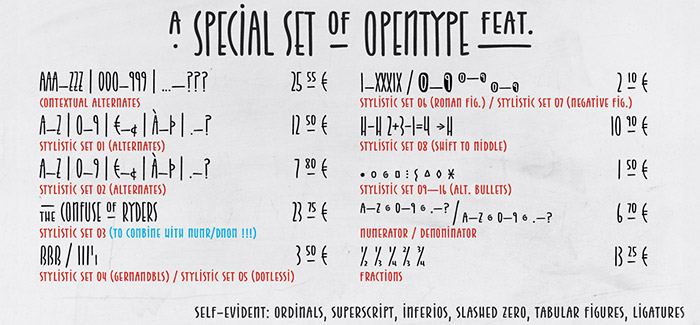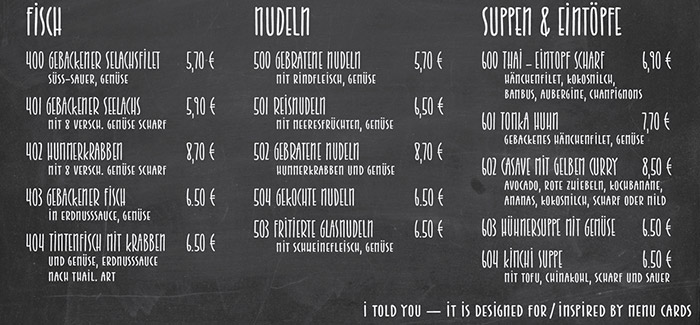
Jabana font
Jabana font by Nils Types foundry is a smooth handwritten super condensed Sans Serif for menu cards and many more. It was designed by the German designer Nils Thomsen to be his first release at MyFonts. Inspired by having a beer at Hamburgs coffee bars.
Jabana font is composed of only uppercase letter shapes. Each letter and punctuation have three simple varieties of alternates. This gives a nice looking handwritten nature to the font. They will be randomly chosen by the contextual alternates feature or even by hand via stylistic set (ss01, ss02).
Jabana fonts reveals a huge treasury of standard accented letters, fractions, mathematical glyphs, superiors and inferiors you will find alternates, extra bullets, different arrows, negative figures and roman numerals. Another reason for the amount of 1450 glyphs are the numerator and denominator letters which came from A-Z, punctuation and the extra bullets (ss09-16). They are meant to be used for decoration or distinction. Especially an OpenType stylistic set can give an extra touch to it while putting a dot/line above denominators or underneath numerators (ss03+numr/dnom).
Naming: Jabana/Jebena is a container used to brew coffee in the Ethiopian, Eritrean and Eastern Sudanese traditional coffee ceremony. It is usually made of pottery and has a spherical base, a neck and pouring spout and a handle where the neck connects with the base.
Nils Thomsen is a German type designer, captivated by graffiti since his childhood and later transformed into a sense of fascination for letter shapes. During Nils undergraduate studies at Muthesius art school Kiel, type and typography became his primary interest. The school’s type design classes led by Albert-Jan Pool had played an important role in defining Nils next step – the Royal Academy of Art (KABK) in The Hague. Nils Thomsen successfully completed his Master Degree at postgraduate course Type]Media in 2010.
The graduation typeface “Meret” at Type]Media, has been further developed by OurType and joined the collection in 2011. Meret received the letter.2 Certificate of Excellence in Type Design from the Association Typographique Internationale in 2011. Christian Schwartz took Meret in 2011 as the new text face for the American business “magazine fast company”. In 2013 Meret was chosen to one of the best typography of the year by communication art magazine.
From 2011 Nils Thomsen worked at Bureau Johannes Erler in Hamburg for two years. During this time he participated in the redesign of the German daily “Süddeutsche Zeitung”, contributing to its new corporate typeface. Nils part was the “text-face” and the additional headline “serif-face”.
In the beginning of 2013 Nils started his own business, drawing typefaces and working as a freelancer in Hamburg. In early 2014 Nils Thomsen founded Nils Types to start distributing his own fonts.